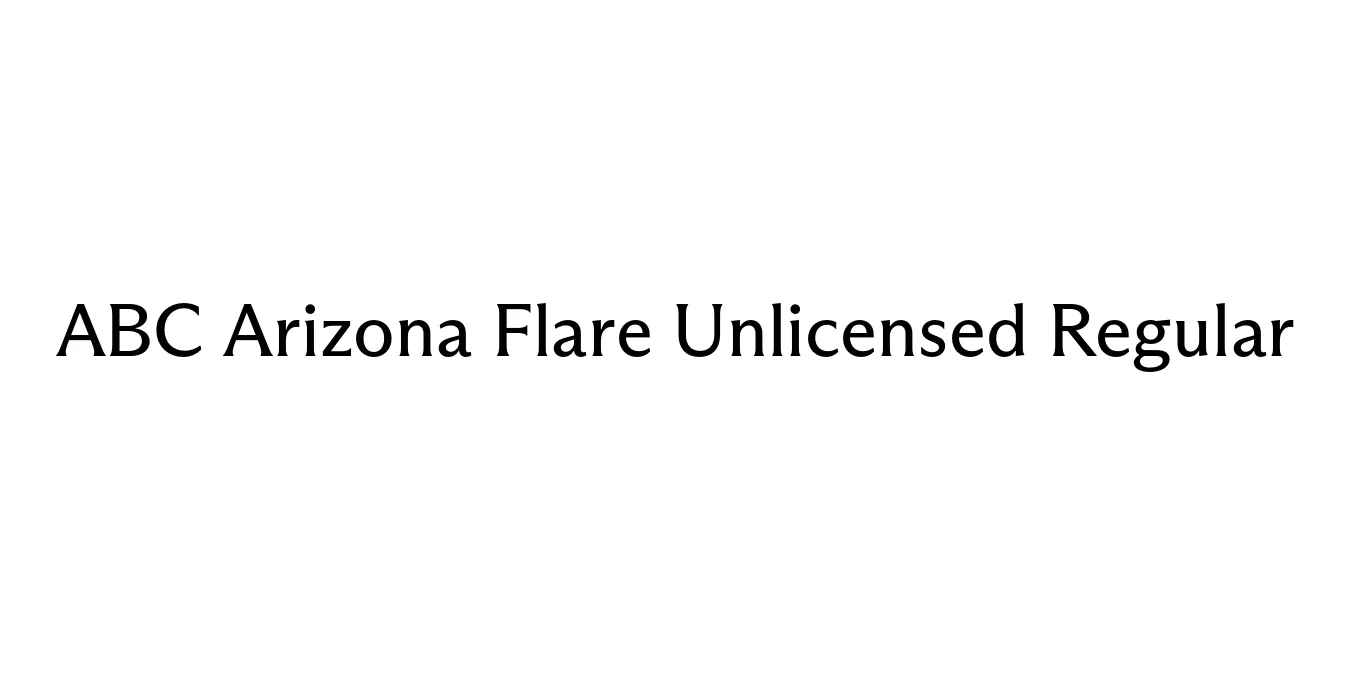
ABC Arizona Flare Unlicensed Regular
Designed by Elias Hanzer
| Category | Flare Serif |
| Designer | Elias Hanzer |
ABC Arizona Flare is a distinctive component of the larger Arizona superfamily designed by Elias Hanzer and released through the Swiss foundry ABC Dinamo. It represents a significant milestone in type design as part of the first system to fluidly transition through five different structural identities: Serif, Sans, Flare, Mix, and Slab. The Flare variant specifically occupies the space between a sans-serif and a traditional serif, characterized by its elegant, outward-tapering terminals that evoke a calligraphic and high-contrast aesthetic without the use of formal serifs.
The Unlicensed Regular version serves as an introductory glimpse into the typeface's versatile architecture, showcasing how it balances structural rigidity with expressive, organic movement. This typeface is highly regarded in the design community for its ability to function across vastly different contexts, from technical environments to luxury branding. Its construction is rooted in a rigorous exploration of the variable font format, allowing for seamless adaptation across weights while maintaining a cohesive visual language that is both modern and timeless.
ABC Arizona Flare Unlicensed Regular Best Uses
Sophisticated choice for magazine headers and body copy that requires a touch of elegance.
Excellent for creating unique, high-end visual identities for fashion and lifestyle brands.
Provides great legibility and a modern flair for creative agency websites and portfolios.
The unique stroke endings make it a standout choice for large-scale display use.